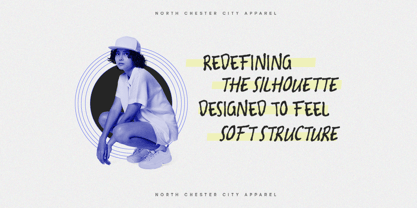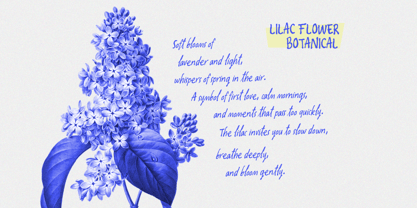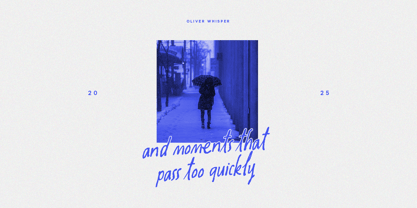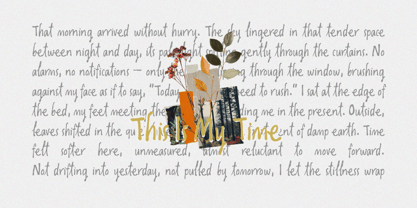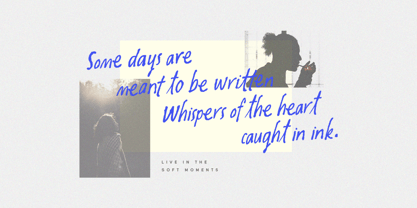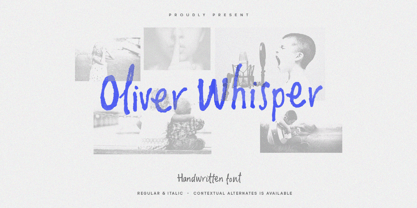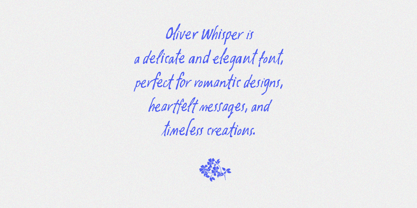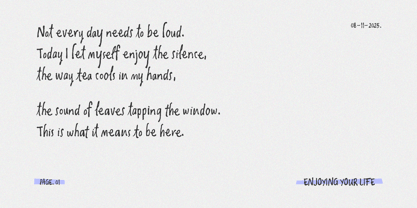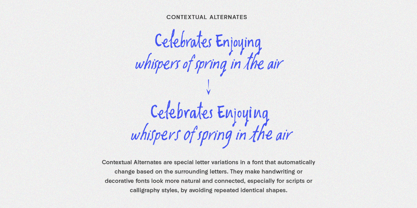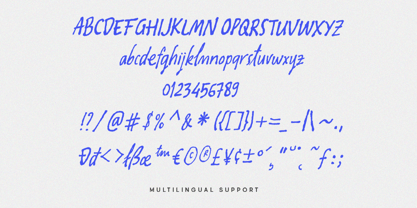
Oliver Whisper
by Letterhend
The Oliver Whisper Font Family was designed by Hendry Juanda and published by Letterhend. Oliver Whisper contains 2 styles and family package options. More about this family
Oliver Whisper is a handwritten font that embodies a raw, honest, and slightly imperfect charm. Its textured strokes and organic flow evoke the spontaneity of a handwritten note while maintaining the character to stand out in logos, posters, quotes, and creative branding. Key features include uppercase and lowercase letters, numbers, punctuation, alternate characters, ligatures, multilingual support, and PUA encoding.
Designers: Hendry Juanda
Foundry: Letterhend